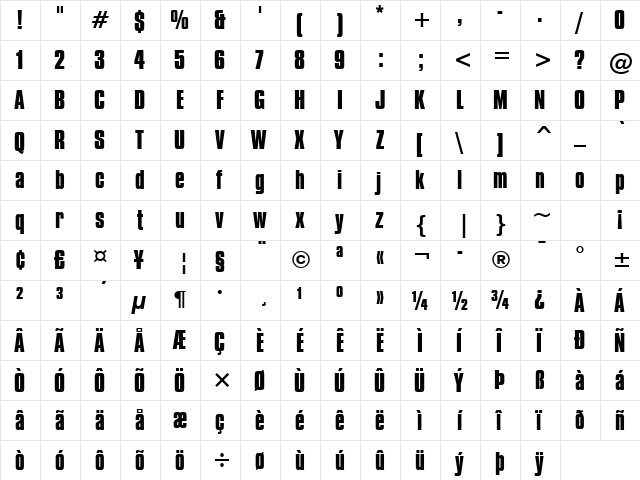
Compacta Bd BT Bold Font Preview
Compacta Bd BT Bold
Design Context for Compacta Bd BT Typeface
Compacta Bd BT offers clean, dependable letterforms without strong stylistic allegiance, making it a practical choice for designers who need flexibility. Its bold stroke weight gives it real presence on the page. Its narrow stance lets it pack a punch even in space-constrained designs.
Pro Tip: Pair Compacta Bd BT with a font of contrasting weight or personality to build a more expressive typographic hierarchy.